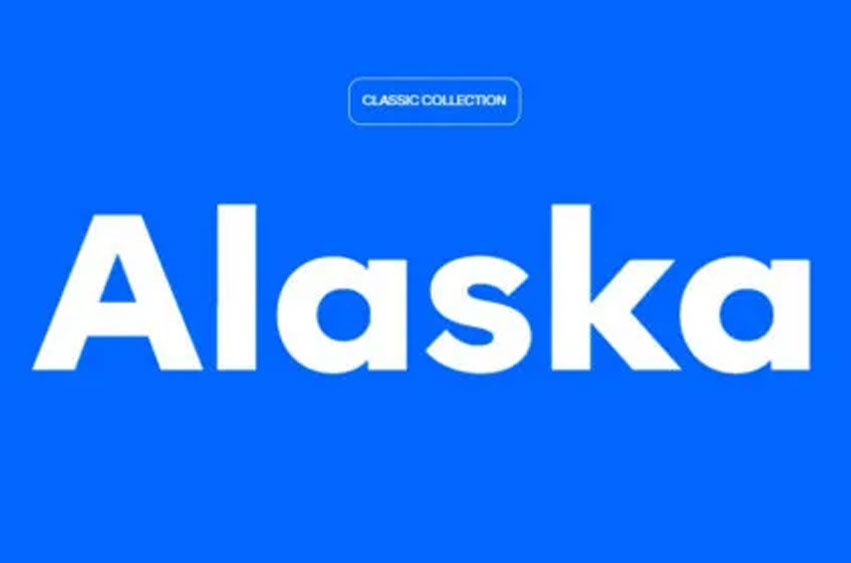
Alaska Font
Alaska Font is a clean, geometric typeface that explores a design style of low x-height and neat curves. Alaska is perfect for adding a unique touch to your titles and logos. Ideal for both display and text sizes, this font excels in branding, web design, magazine, and more.
Elevate your projects with Alaska and experience the perfect blend of fun and sophistication.